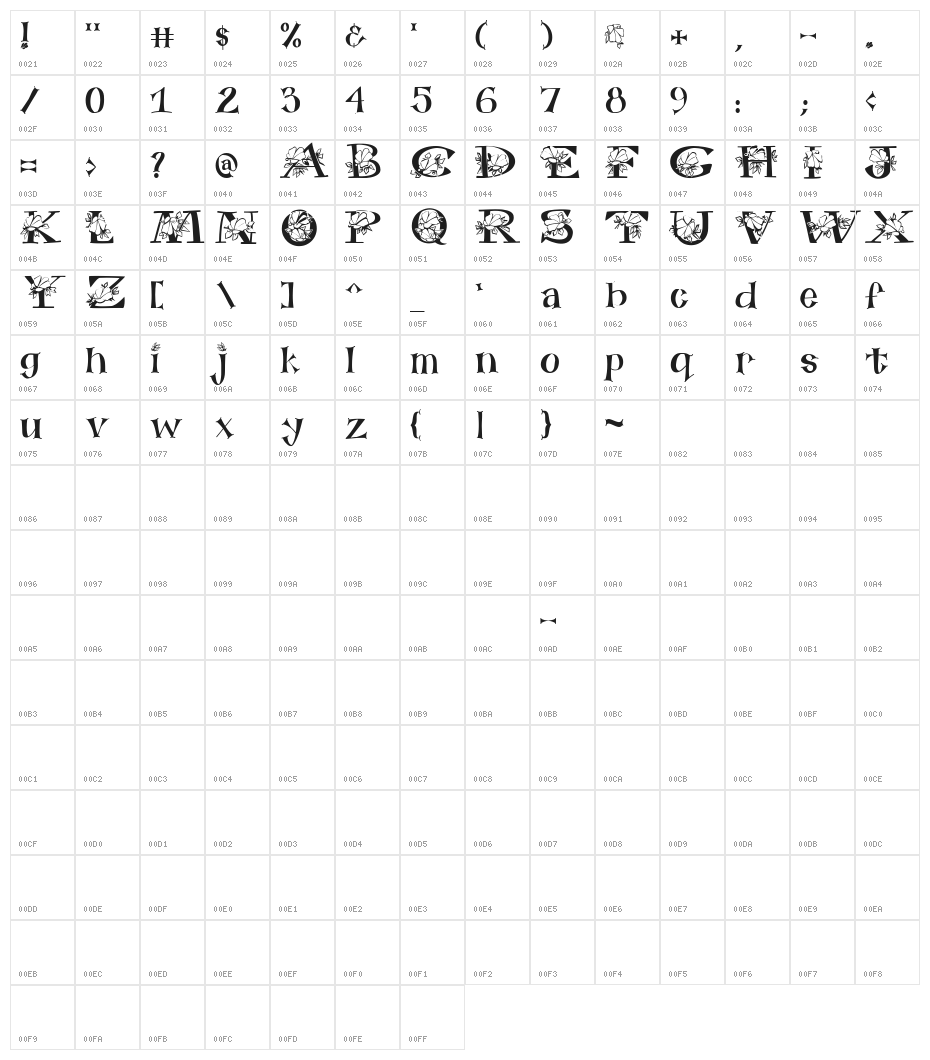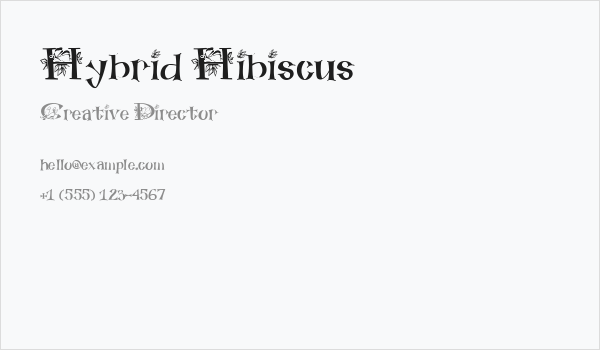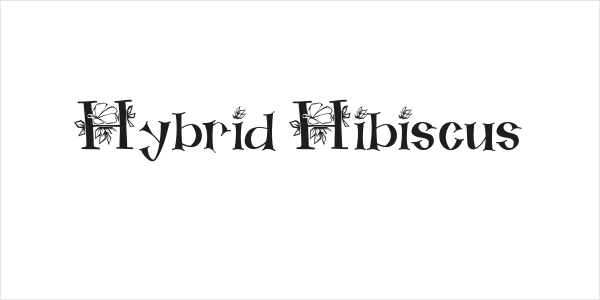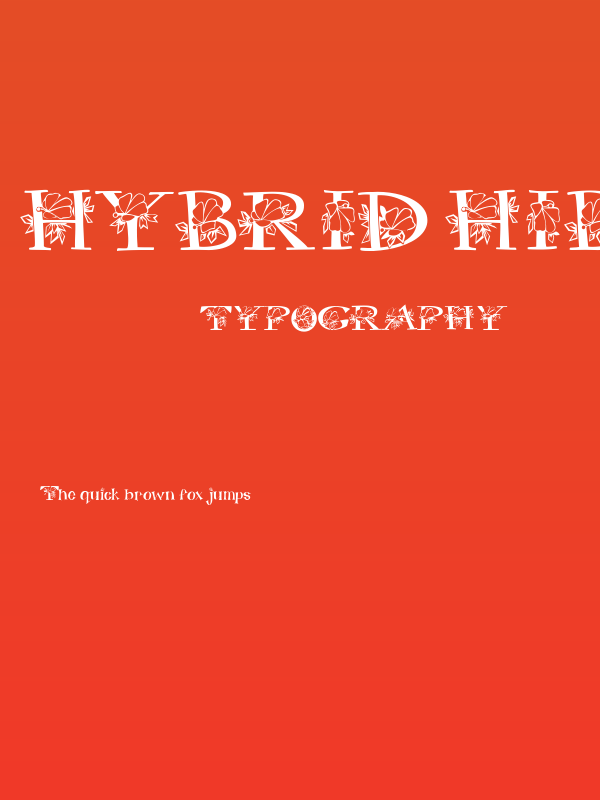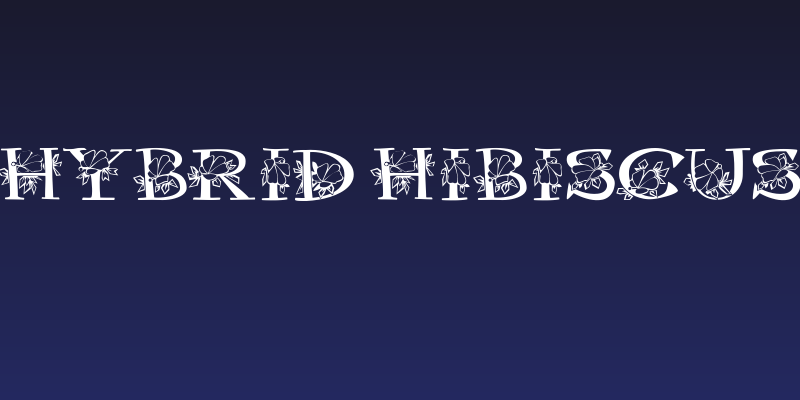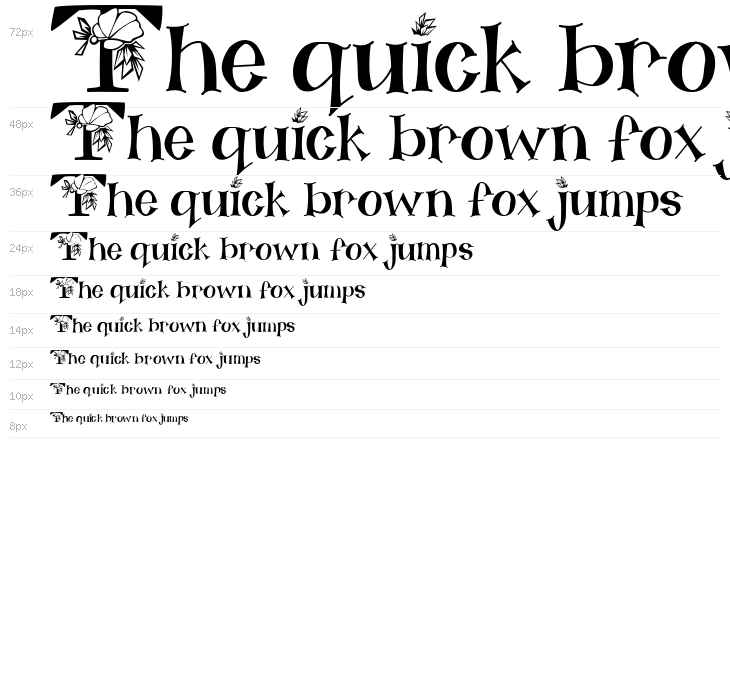
Hybrid Hibiscus Font
Hybrid Hibiscus Description
This decorative font features intricate floral embellishments integrated into the uppercase letters, creating a unique and artistic appearance. The lowercase letters maintain a more traditional serif style with slight flourishes, offering a harmonious balance between elegance and creativity. The numerals are bold and distinct, with subtle curves that enhance readability. Special characters are designed with the same artistic flair, incorporating floral motifs and unique shapes. This font is ideal for projects that require a touch of nature-inspired elegance and creativity.
| Proposed Projects | Ideal for wedding invitations, greeting cards, botanical branding, and artistic posters. |